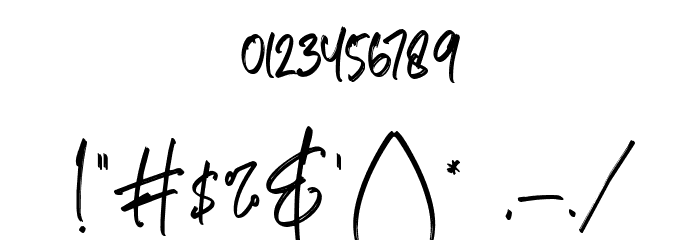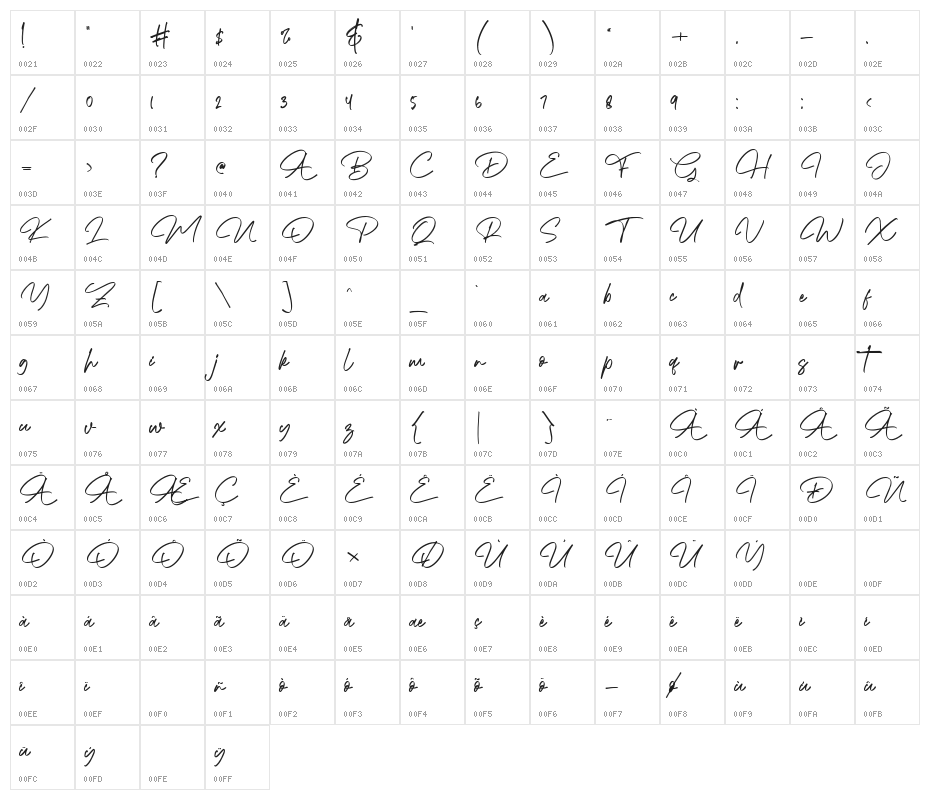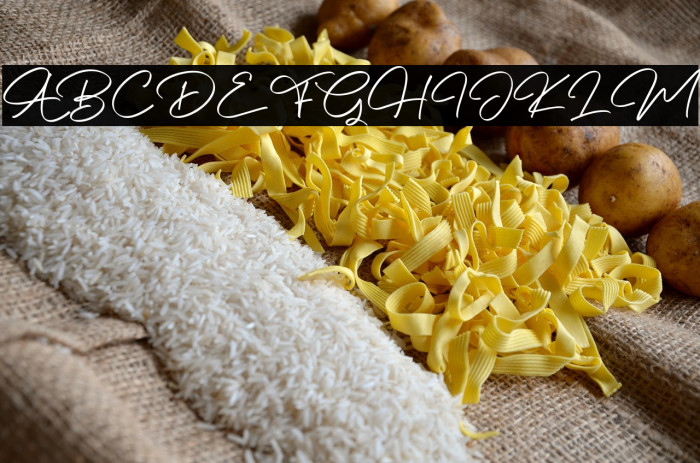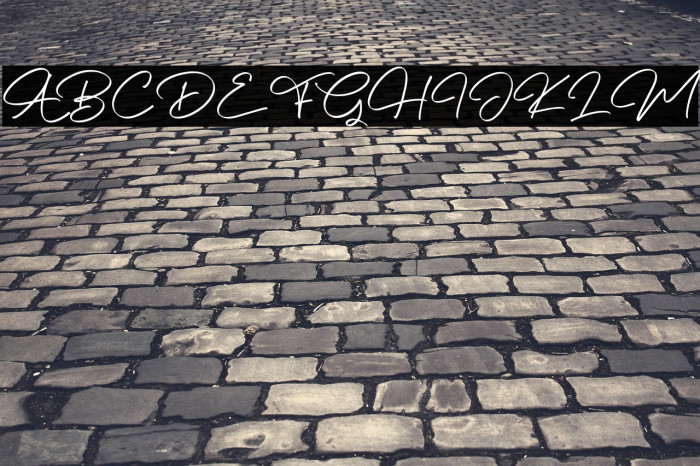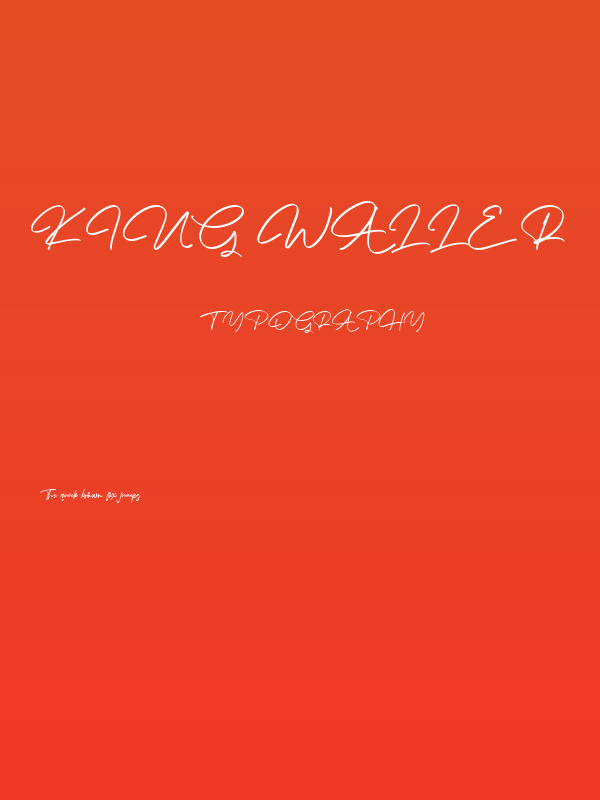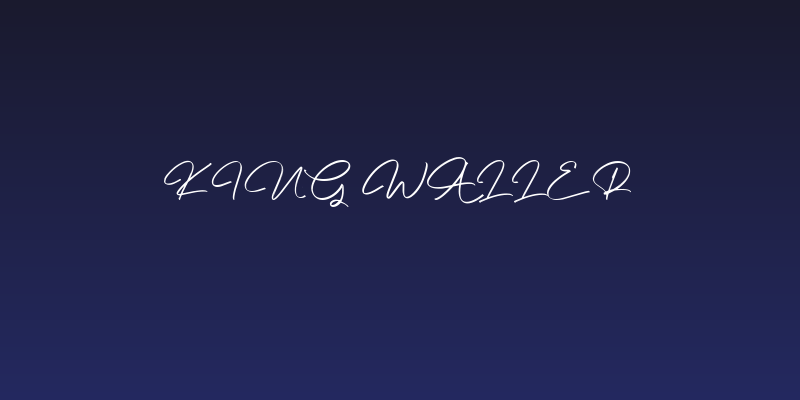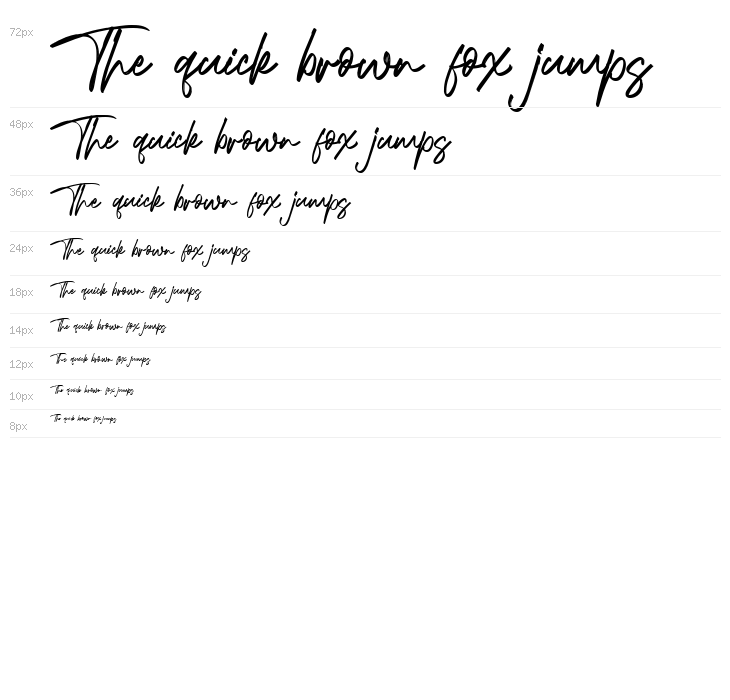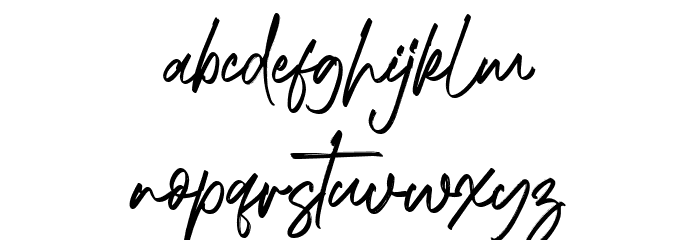
King Waller Font
King Waller Description
This font is a stylish and elegant script typeface that exudes a sense of sophistication and fluidity. The uppercase letters are gracefully connected, creating a seamless flow that is both artistic and refined. The lowercase letters maintain a consistent style with a slightly more casual appearance, adding versatility to the font's overall look. The numerals are clear and legible, while the special characters are thoughtfully designed to complement the script's aesthetic. This font's design is perfect for projects that require a touch of elegance and personality.